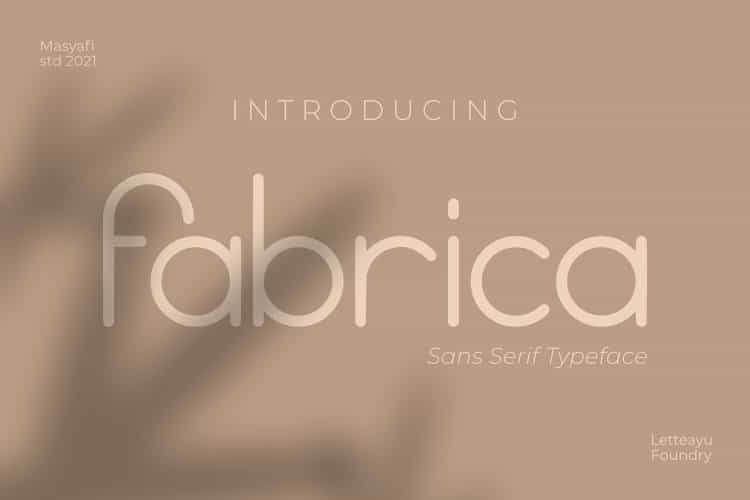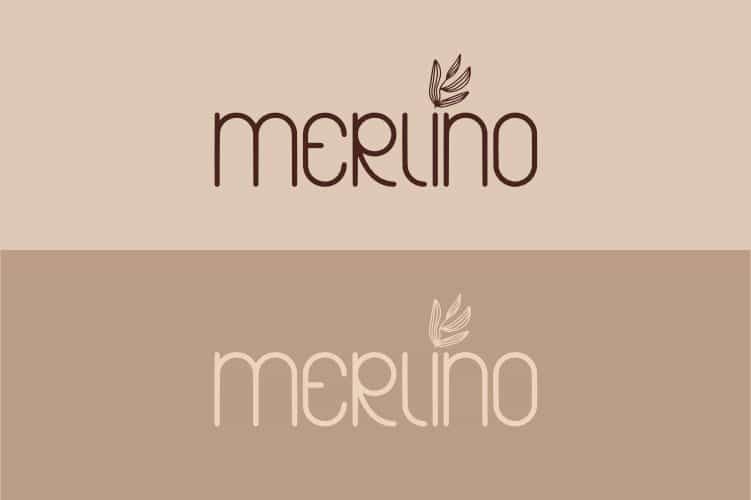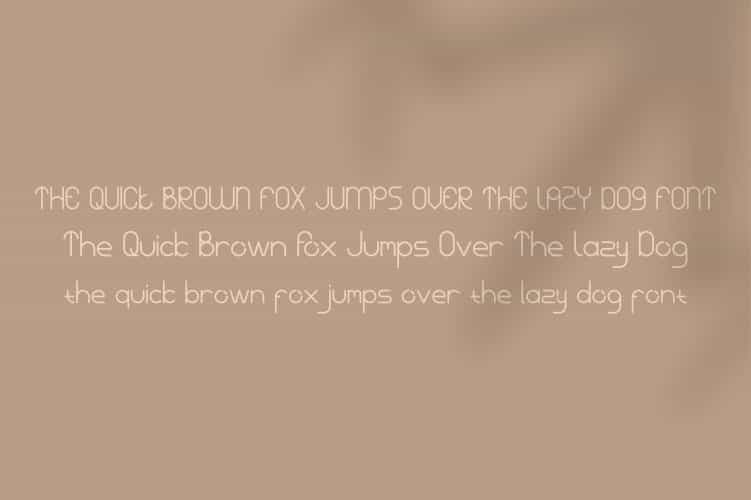
Fabrica Sans Serif typeface offers many attractive alternatives and modern style options, making it the ideal choice for headlines, logos and packaging designs, posters and so much more! The Fabrica can also be found as part of its matching family: Fabrica Serif.